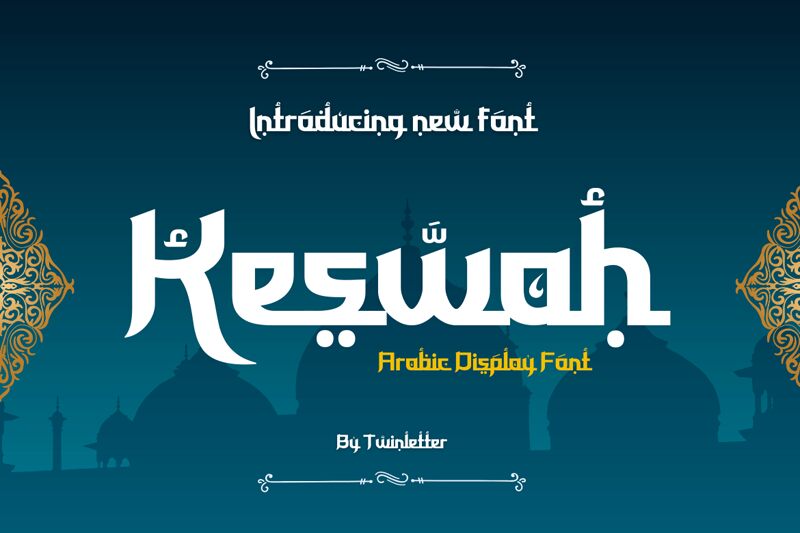
Keswah, crafted by twinletter, is a captivating foreign font that exudes the elegant essence of Arabic calligraphy. This semi-bold typeface boasts an expanded width, adding a touch of uniqueness to any project.
Perfectly suited for designing eye-catching logos and branding materials, Keswah adds an exotic charm to travel brochures and cultural event promotions. Its distinct Arabic style makes it ideal for creating stunning wedding invitations or captivating book covers that transport readers to distant lands.
Let Keswah's intricate curves and boldness infuse your designs with the mystique of the Middle East.